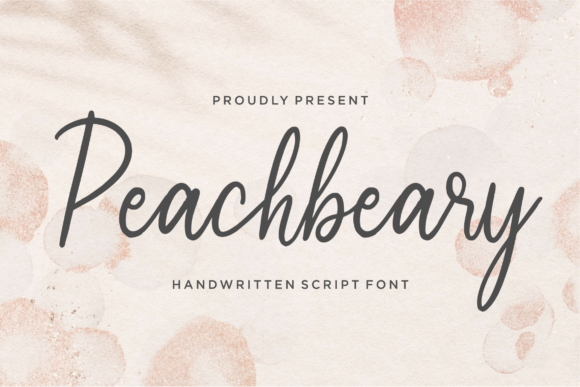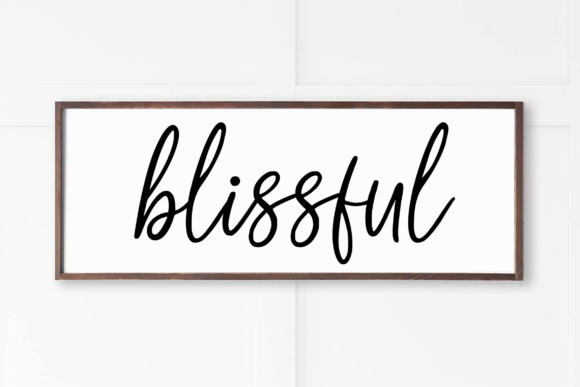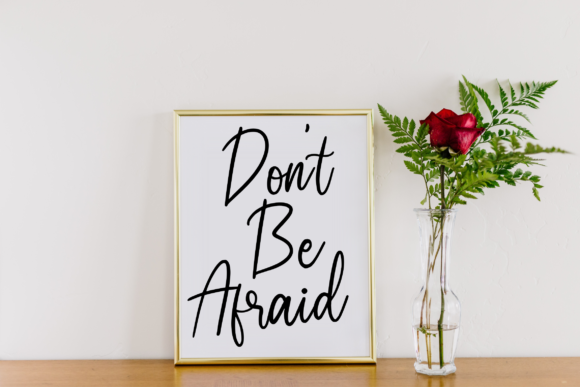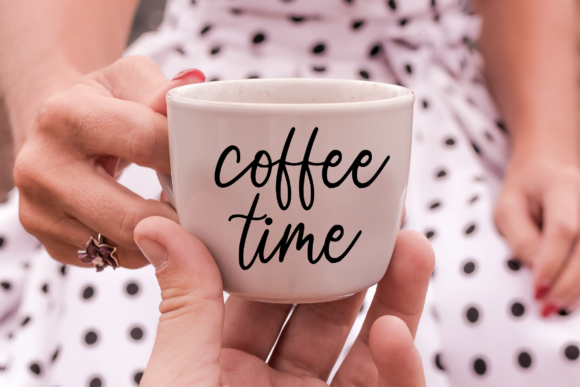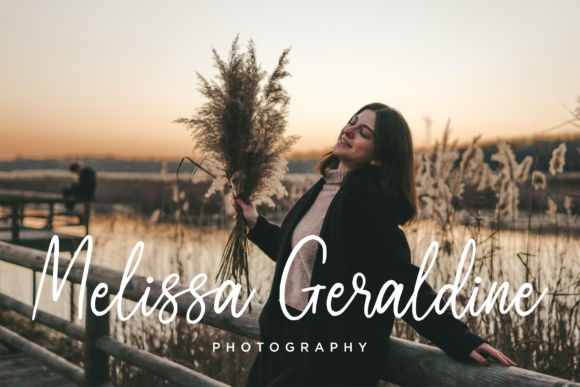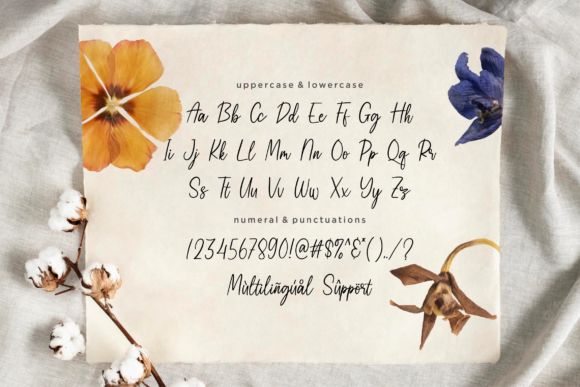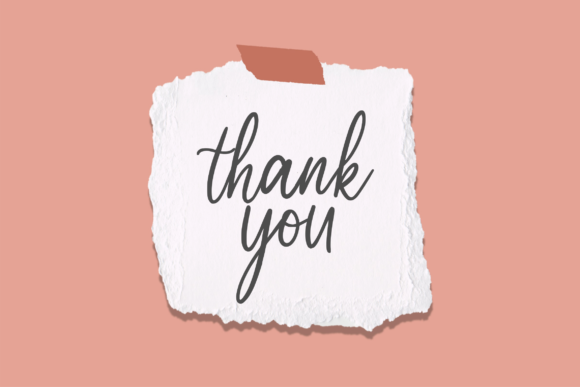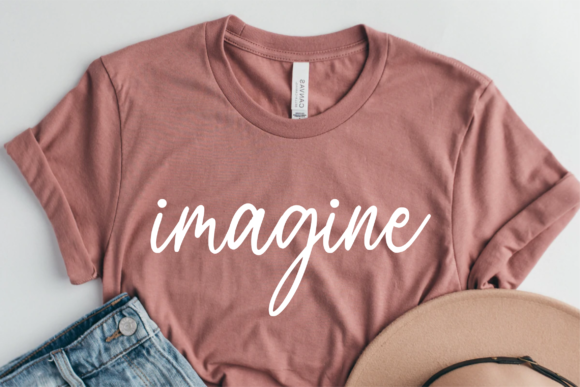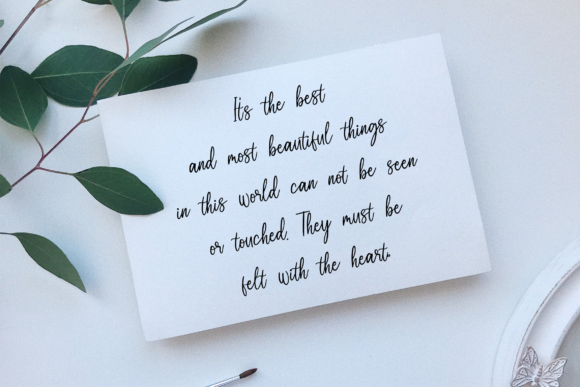
Peachbeary Font
About Peachbeary Font
“Peachbeary” is a superb handwritten font designed to make your work stand out with its elegant and curvy lines. This font is an excellent choice for a variety of applications, including product packaging, branding projects, magazine covers, social media graphics, wedding materials, or whenever you want to express words gracefully against different backgrounds.
The elegant and curvy lines of “Peachbeary” add a touch of sophistication to your designs. Imagine this font enhancing product packaging, where its script style brings a sense of charm and refinement. The curvy lines ensure that “Peachbeary” stands out with a delightful and graceful aesthetic.
In branding projects, “Peachbeary” becomes a key element in creating a visual identity that exudes elegance. The font’s versatility allows it to adapt seamlessly to different contexts, enhancing the overall appeal of various brands.
For social media graphics or any design that requires a touch of sophistication, “Peachbeary” adds a superb handwritten flair. Its script style brings an artistic and creative touch, making your content visually engaging and elegant.
As you incorporate “Peachbeary” into your creative projects, appreciate its superb handwritten charm. Whether you’re working on print materials or digital media, this font serves as an elegant and versatile choice to make your designs stand out with grace and style.